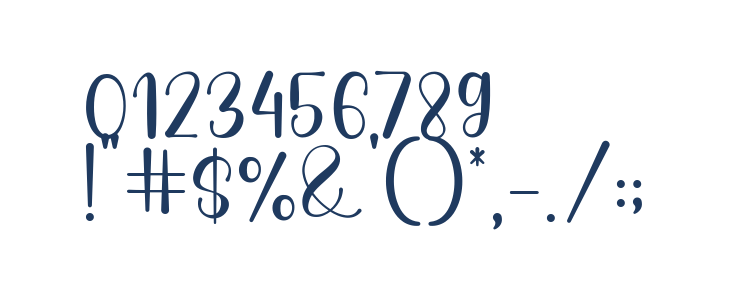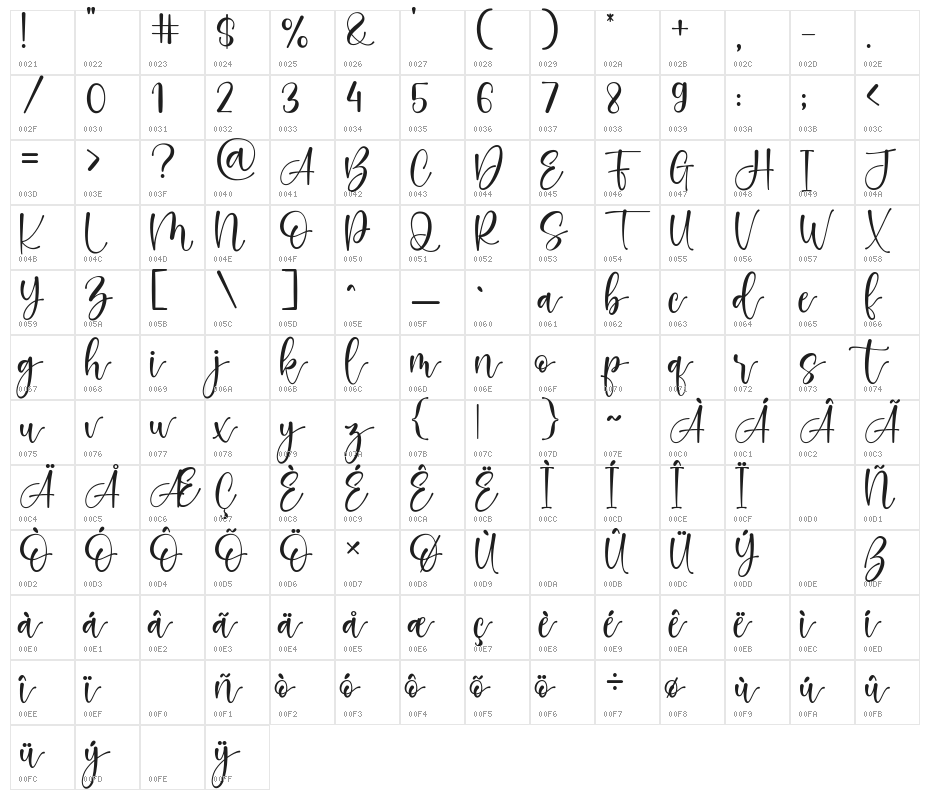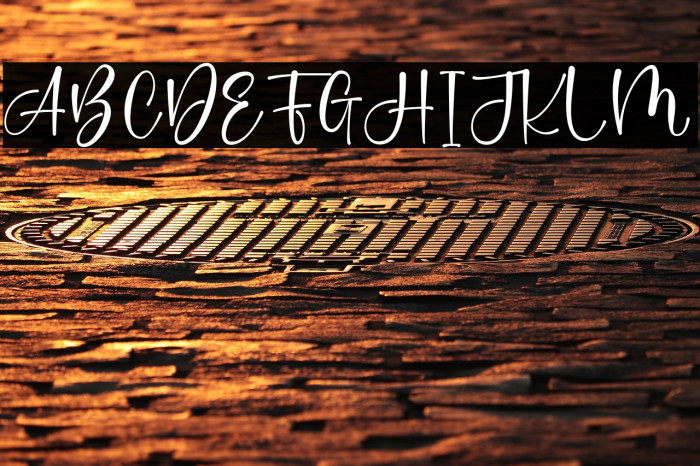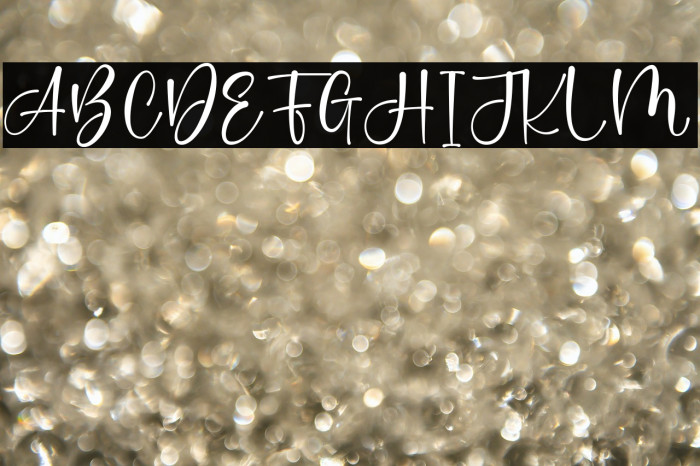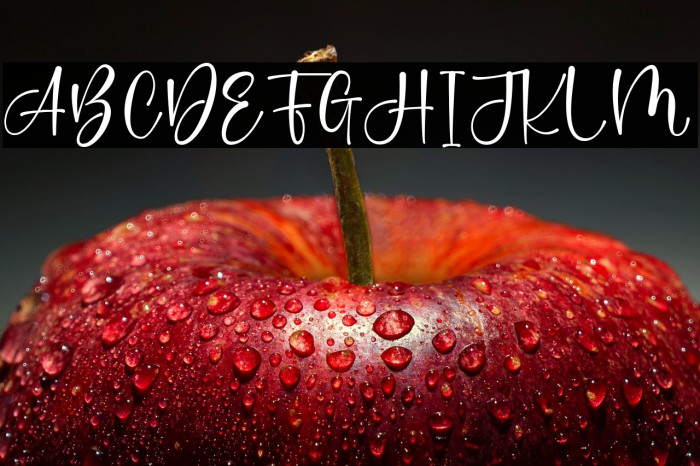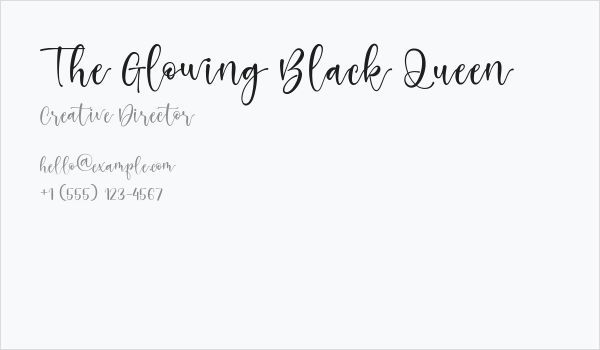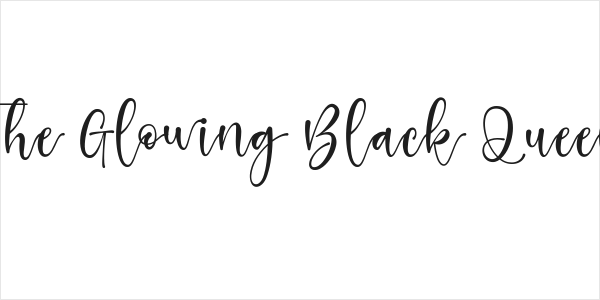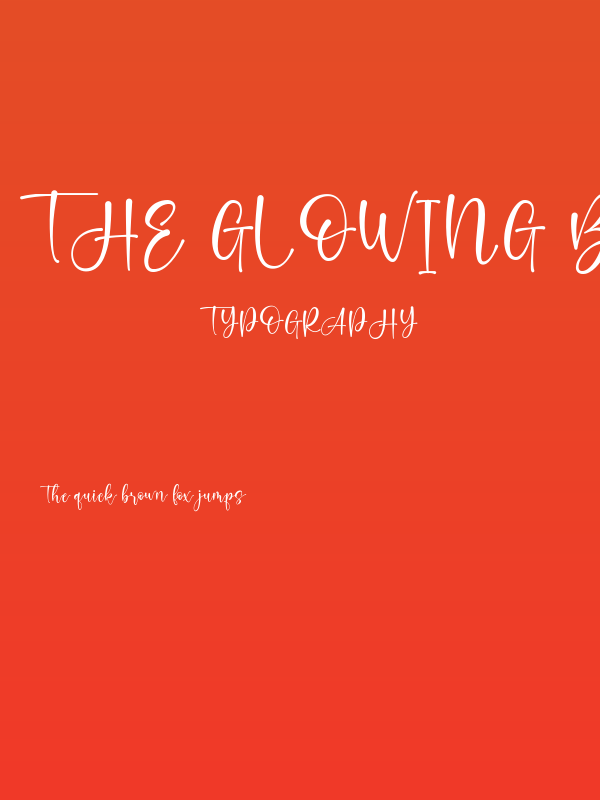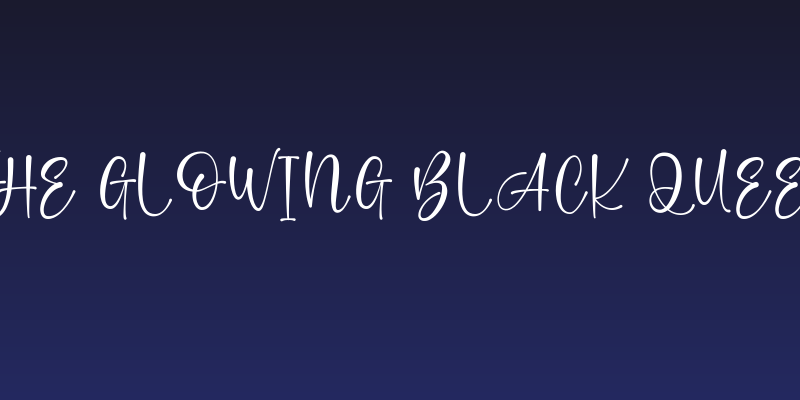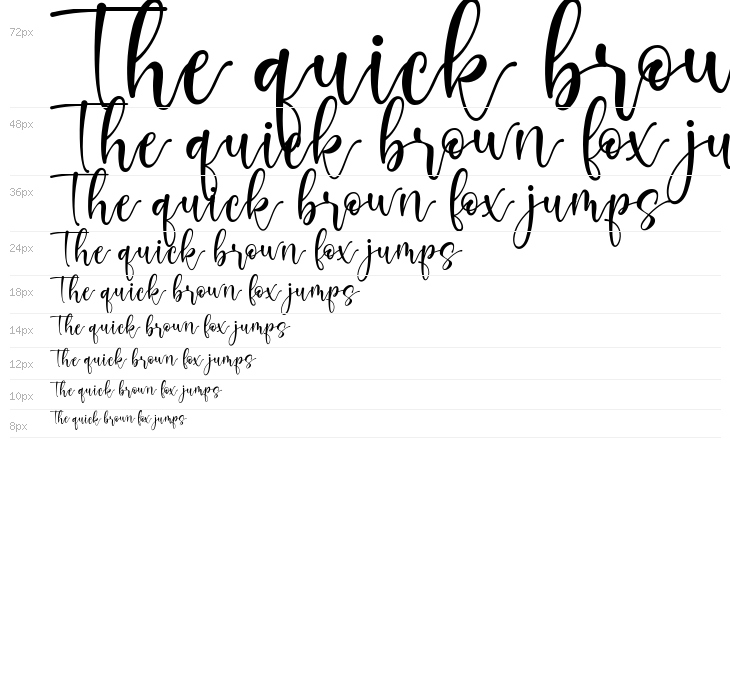
The Glowing Black Queen Font
The Glowing Black Queen Description
This font features a lively and flowing script style that exudes elegance and charm. The uppercase letters are bold and slightly slanted, with a playful yet sophisticated flair. The lowercase letters are more fluid, with graceful loops and curves that add a touch of whimsy. The numbers maintain the same flowing style, making them visually cohesive with the letters. Special characters are designed with the same attention to detail, ensuring consistency across the board. This font is perfect for projects that require a personal touch, such as invitations, greeting cards, or branding materials. Its decorative nature makes it stand out, while its readability ensures it remains functional.